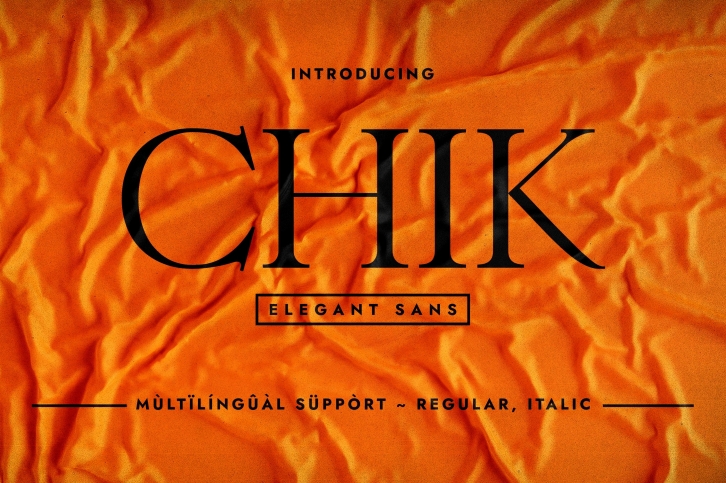
Chik as the name suggest is a very elegant, chic and minimalist serif typeface. Its unique glyphs construction renders it a vital choice when you are designing themes that require some unique elegant touch, and minimalist effect. it can be in various elegant themes where clean design is required. use it in your creative idea so you start noticing how much it is powerful.